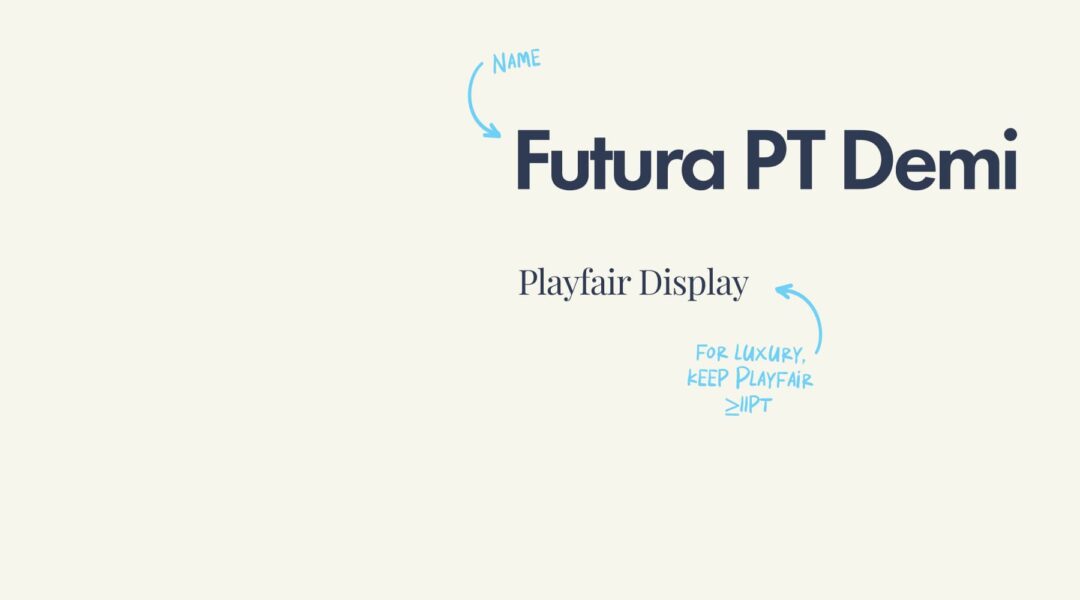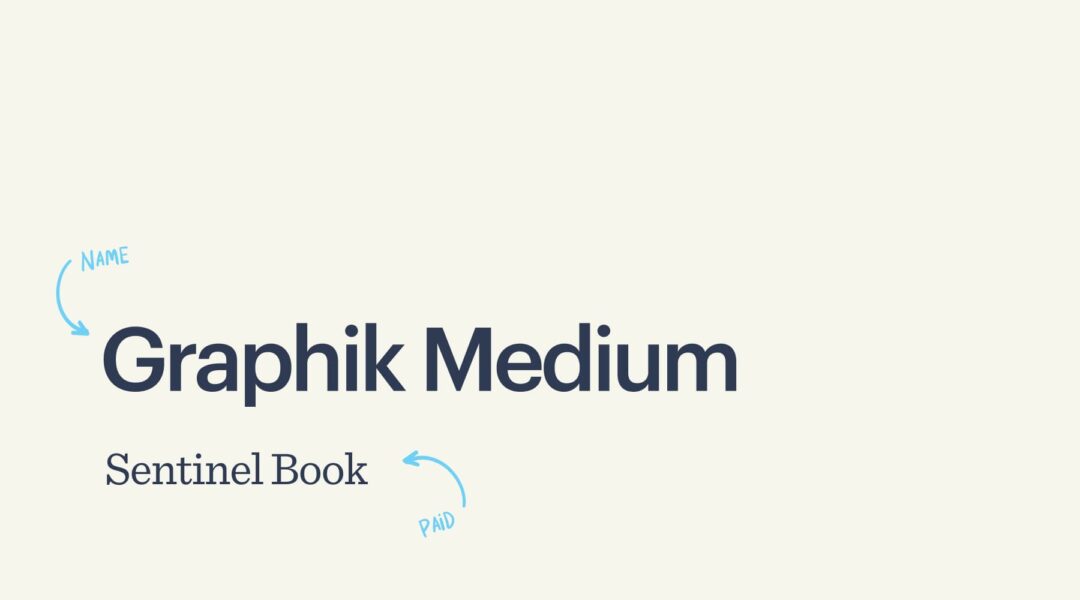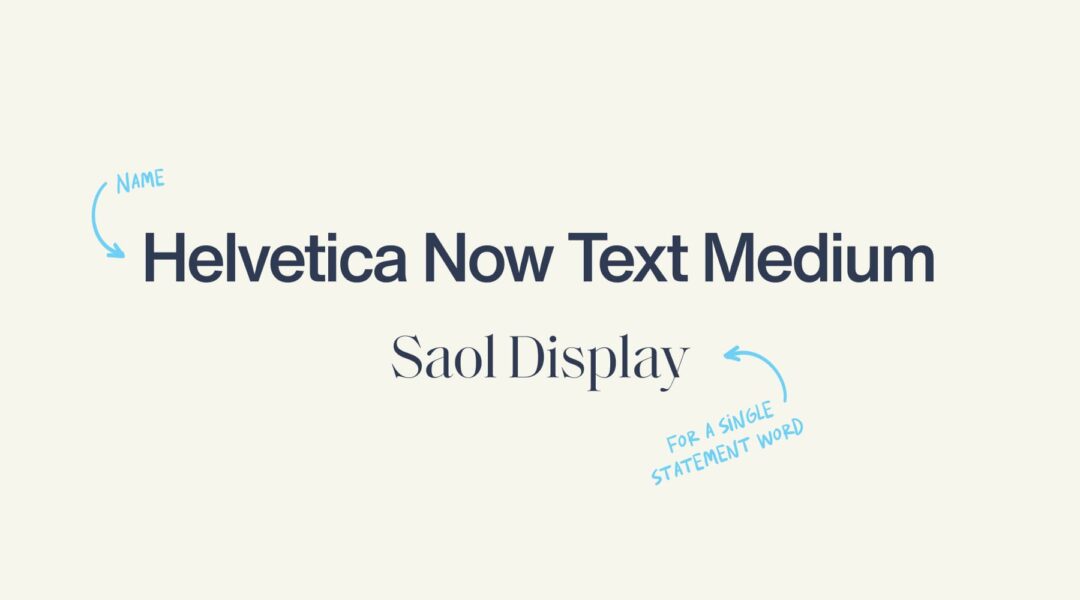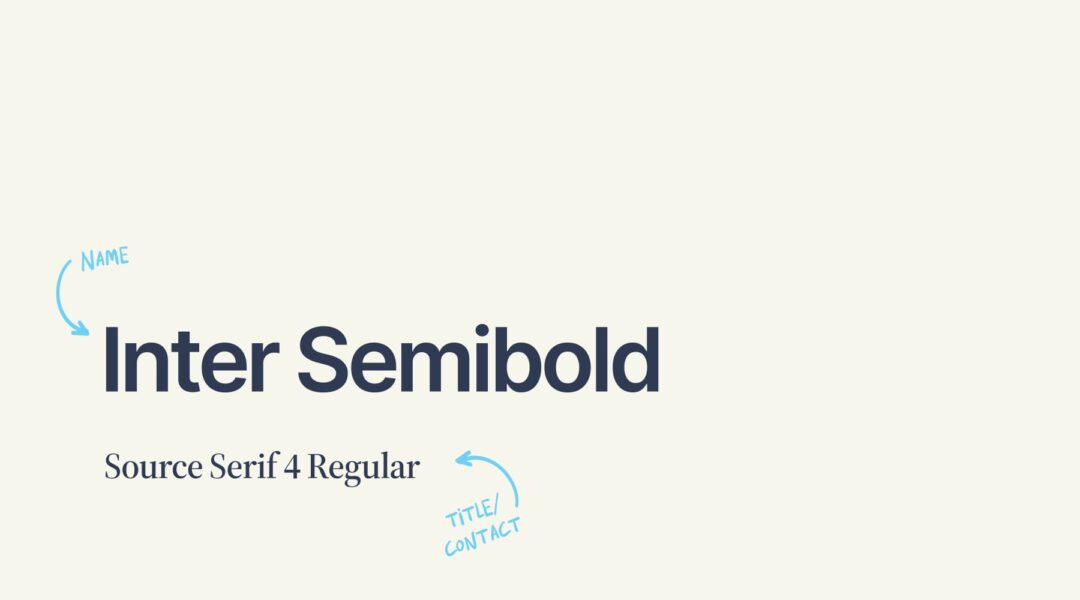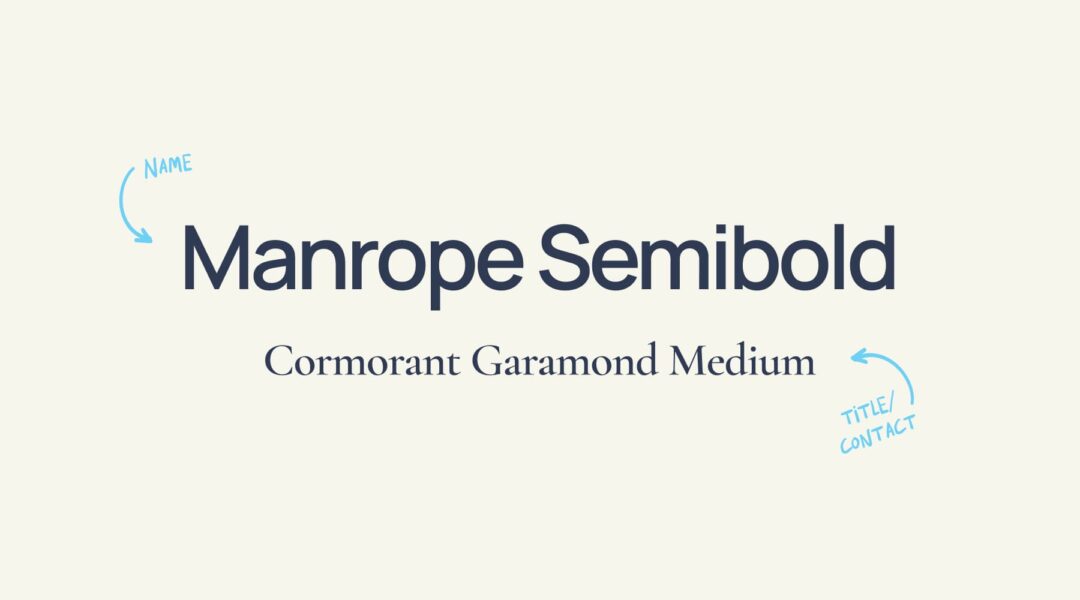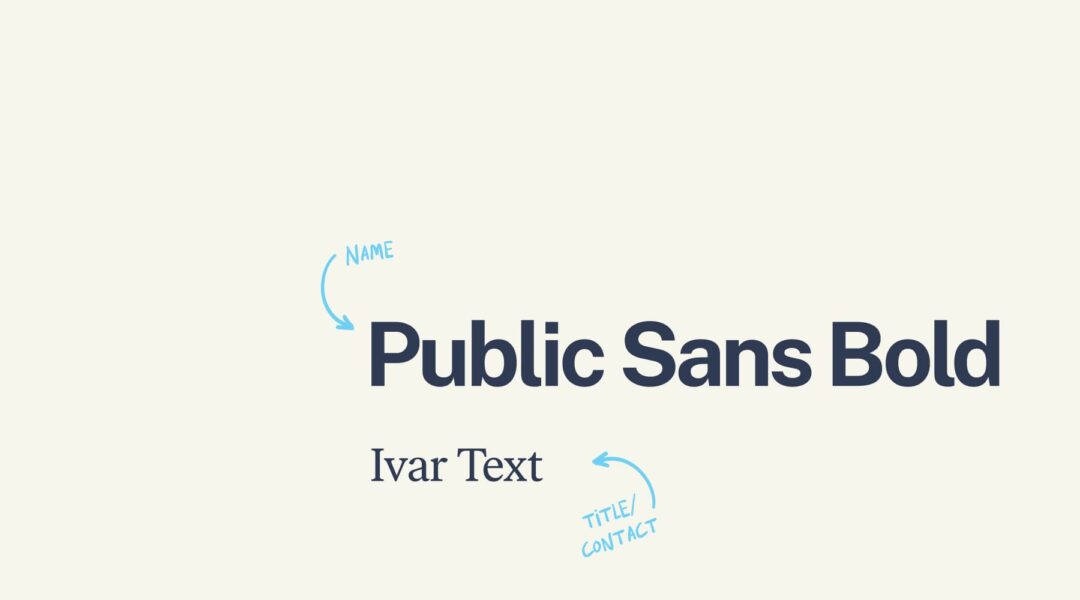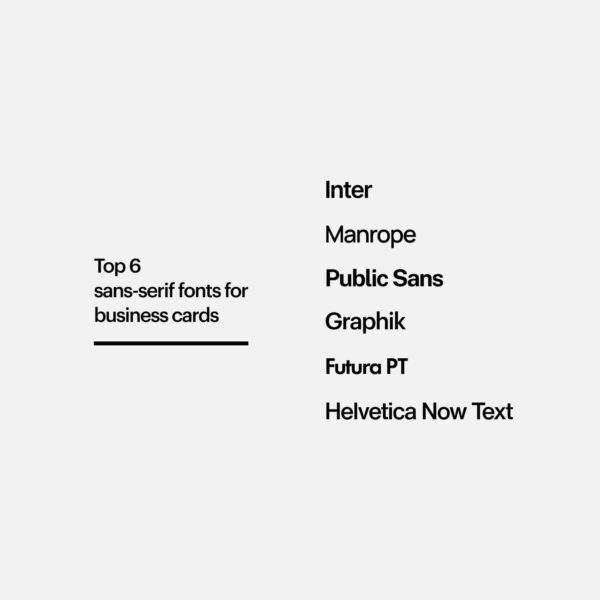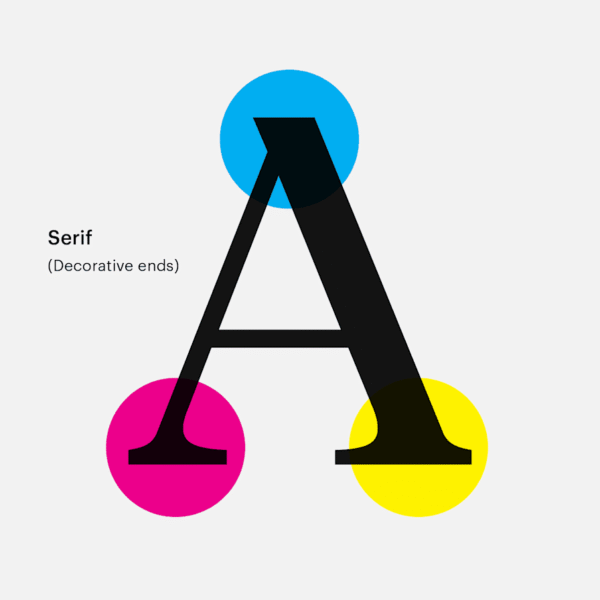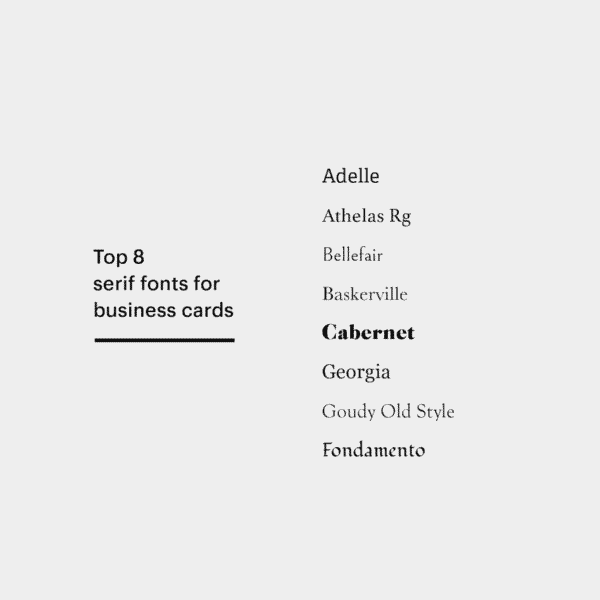
In this guide, we’ll dive into why typography makes or breaks a business card, and we’ll discuss the most reliable, modern fonts for business cards, plus how to size and pair them so they print crisply and read instantly. Picture this: You open a business card template and type your small business name. It looks tiny against the white background, so you increase the font size. Now, you explore the available fonts to see how it looks in different typefaces. Before you know it, you’re scrolling through the (seemingly) endless list of fonts, more indecisive than ever. What looks sharp on-screen can blur or feel cramped on paper if the font weight, x-height or paper finish isn’t right.
With so many types of business cards and font styles to choose from, finding the typeface that will define your business can seem daunting. The fonts you use on your business card have two main jobs: to attract attention and be easy to read. We’re here to help guide you through the different types of business card fonts, how to combine different styles and the ideal business card font size.
- Sans-serif fonts are the best kind of font for business cards because they are simple, modern and easy to read. Serif fonts are best if you want your card to have a more traditional look.
- Script fonts can add an elegant touch and draw attention to your business card, but should only be used for less important information, like your company tagline.
- When designing business cards, create a visual hierarchy of information. Put the most important information, like your name or the name of your small business, in a larger font size.
- Tips for combining business card fonts include pairing a script or serif font with a sans-serif and using different weights of the same typeface to create contrast. Avoid pairing fonts that look similar and don’t use more than three font sizes on your business card.
- Important business card information should be sized between 10pt-16pt, while secondary text should be no smaller than 8pt for legibility. Avoid using script and serif fonts for small print.
Types of fonts: Serif and sans-serif fonts
What is a sans-serif font?
Great question—let us save you the Google search. In typography, a sans-serif font doesn’t have the decorative lines, or serifs, at the end of each stroke. Sans-serif fonts also tend to have less line width variation than serif fonts (more on that later).
On printed products, sans-serif fonts work best for business names or headings since they are fonts that are easy to read at a glance. Simple, modern and minimal, sans-serif fonts are usually the best kind of font for business cards. Modern examples that print and screen well in 2025 include Inter, Manrope, Space Grotesk, Plus Jakarta Sans and Söhne-style humanist Grotesks. These offer sturdy counters and generous x-heights that keep small text open and legible.
Sans-serif fonts are also used for digital display text. On lower-resolution displays, fine details like serifs can disappear or appear too large. So, use sans-serif fonts to keep your online and offline presence aligned and ensure your brand fonts are consistent across digital and printed applications.
What is a serif font?
Serif fonts originate from carved inscriptions engraved on historic buildings, bridges and gravestones. This historical association means serif fonts are ideal if you want to give your business card a traditional look or make your business appear well-established.
Due to tradition and perceived readability, serif typefaces are commonly used in manuscripts, books, newspapers and magazines. Some believe that the readability and reading speed of long passages are improved with serif fonts, as serifs help the eye travel across a line. Others believe that serif fonts improve readability since that’s what we’re most used to reading.
On business cards, choose modern, high-contrast serifs with care: extremely thin hairlines can break up on uncoated paper or in small sizes. Contemporary, sturdy picks for 2026 include EB Garamond (bookish), Playfair Display (polished for headlines) and Instrument Serif or DM Serif Text (fashion-forward but readable at moderate sizes).
Tip: If you want to add embossed gloss to a serif font on your business card, only do it on the largest text field—like the name of your small business.
Where to use script fonts on business cards
With their flowing cursive strokes and handwritten-style calligraphy, script fonts are typefaces that convey a human touch, great for invitations, greeting cards, headlines or personal messages. Classic flowing scripts achieve an elegant look, while rounder script fonts have a fun aesthetic. Script fonts can add a personal touch to business cards, but they should be used sparingly.
While a script font can help draw attention to your business card, it’s important to make sure the words are still legible. Don’t use script for longer sections of text, as it can be difficult to read at smaller font sizes. If you want to use a script font on your business card, reserve it for second-tier copy, like your brand tagline or motto, rather than for the main contact information.
Should I use a trendy or classic font for my business card?
Whether you use fonts that are trending or traditional serifs, the important thing is that the information on your business card is easy to read. Simple, modern and minimal, sans-serifs are usually the best kind of font for business cards.